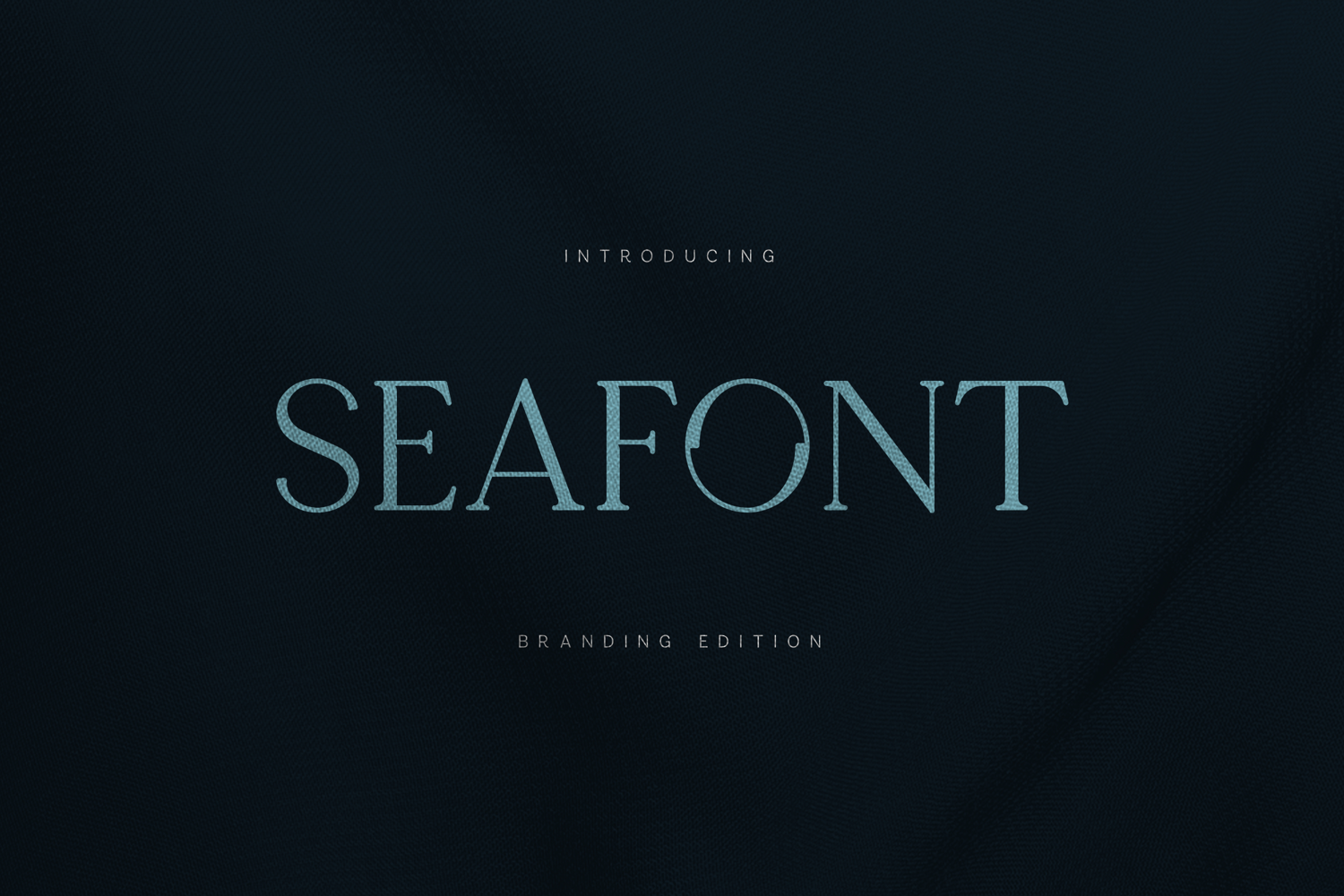
Seafont Elegant Branding Serif Font
Seafont is an elegant modern serif font designed for refined branding and timeless visual identity. With clean proportions, subtle contrast, and carefully crafted letterforms, Seafont delivers a calm, confident, and premium aesthetic.
The Branding Edition focuses on clarity and balance, making the font highly versatile for logos, brand systems, editorial layouts, websites, packaging, and luxury presentations. Its smooth curves and classic serif foundation give it a professional tone that feels modern without losing warmth.
Seafont performs beautifully in headlines, titles, and short text applications, offering designers a dependable serif font for both print and digital projects. The overall look is sophisticated, minimal, and designed to elevate high-end creative work.
The font includes a complete character set with extensive multilingual support, numerals, punctuation, and symbols—ready for global use.